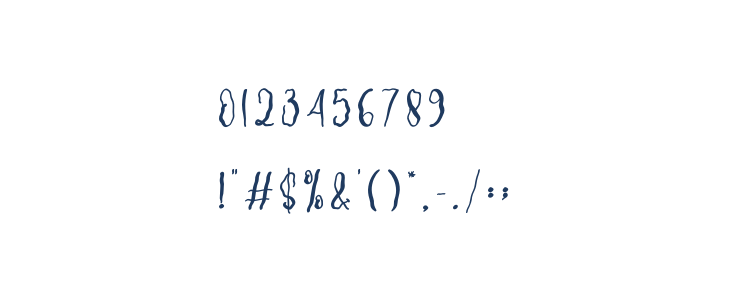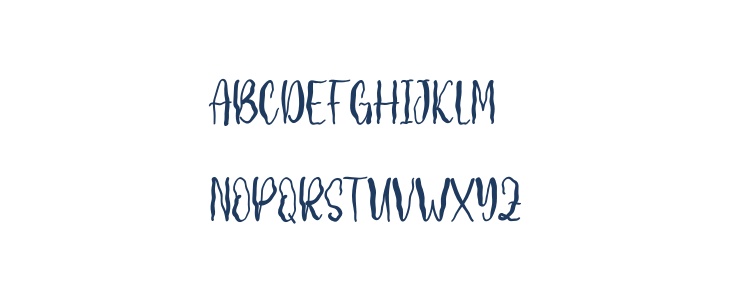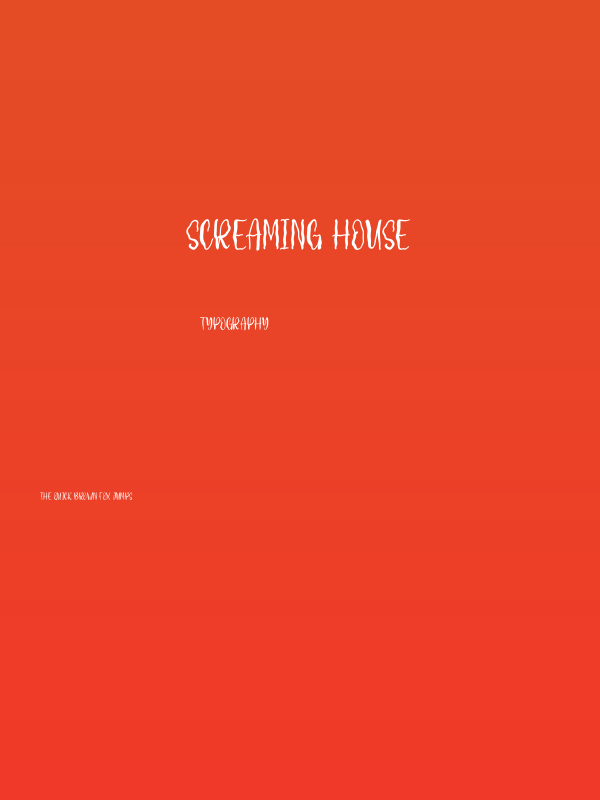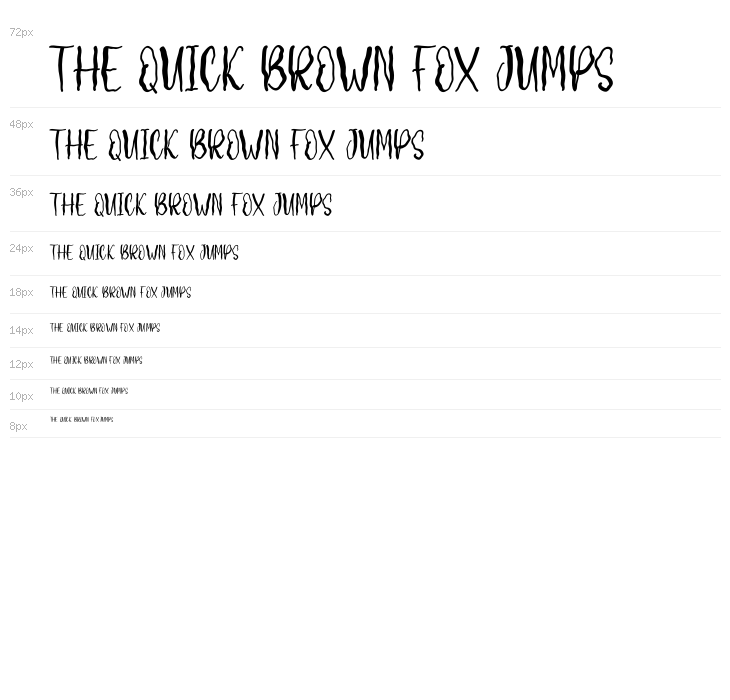
Screaming House Font
Screaming House Description
A decorative, hand-drawn typeface with irregular, jagged strokes and a distressed appearance, evoking a sense of horror or unease. The characters are tall and narrow, with uneven line thickness and rough edges, giving a chaotic and expressive feel.
| Overall Style | Decorative, Horror, Expressive |
| Use Case | Headlines, Posters, Event Titles, Themed Graphics |
| Proposed Projects | Horror movie posters, Halloween invitations, haunted house branding, spooky event flyers, themed merchandise. |